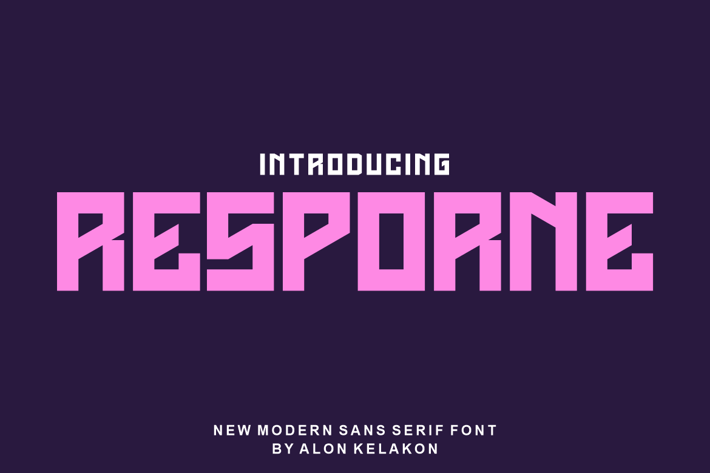
Resporne Font
Resporne Font is unique . Ready to use for your design like labeling, clothing, movie sceen, poster, movie title, gigs, album covers, logos, and much more.